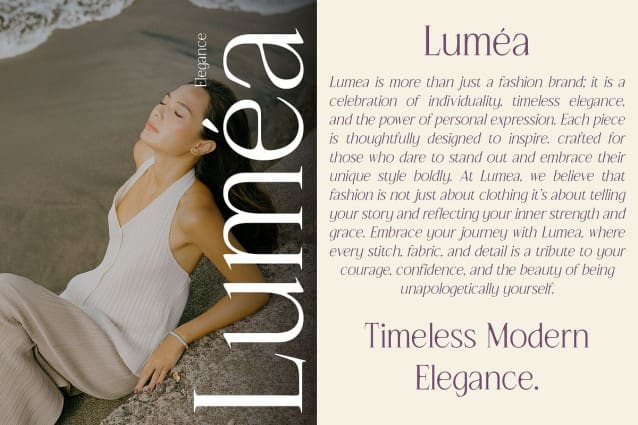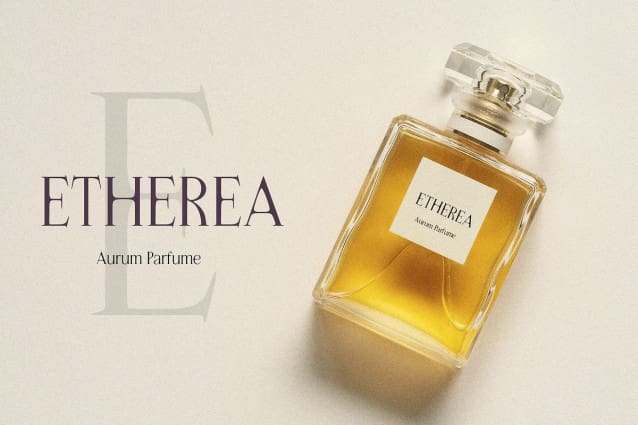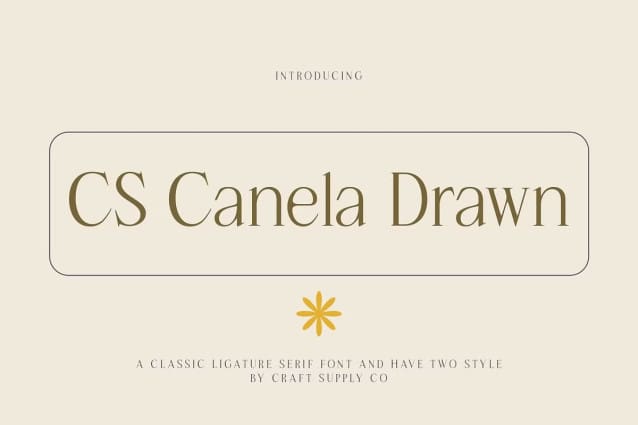
CS Canela Drawn Font
CS Canela Drawn Font is a modern serif font that combines clean, minimalist design with elegant lines, enhanced by a unique hand-drawn effect. This blend of sophistication and artistry gives the font a refined yet organic look, making it an ideal choice for projects that seek to combine elegance with a personalized, creative touch.
Elegant and Versatile for High-End Branding The minimalist design of this drawn font brings a sense of clarity and professionalism, while the hand-drawn details add an element of uniqueness. This versatility makes the font perfect for high-end branding, editorial projects, and other design ventures that require a modern, yet distinctive, typeface. Whether used for luxury products, creative campaigns, or upscale publications, this font offers an elegant solution for a wide range of applications.
Creative Flair with Timeless Appeal The artistic hand-drawn effect provides a contemporary feel while maintaining a timeless appeal. It works beautifully in designs that need to stand out while maintaining a sense of sophistication. From fashion branding to editorial layouts, this drawn font exudes a subtle charm, giving projects a refined, artistic edge that’s perfect for designs seeking a blend of modernity and timeless elegance.